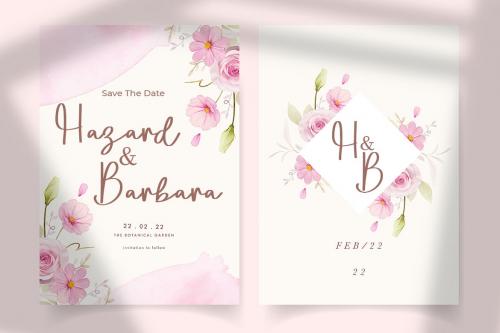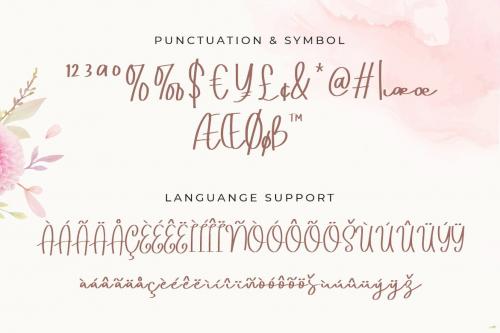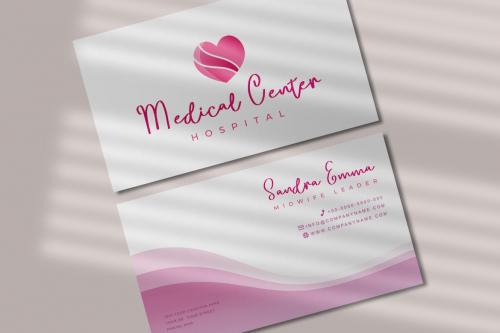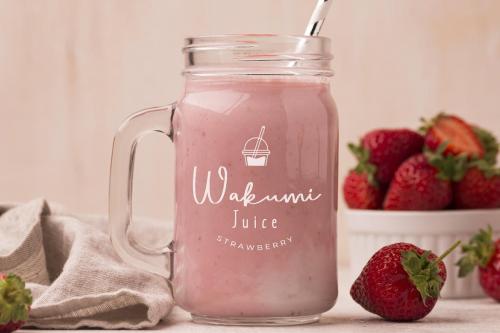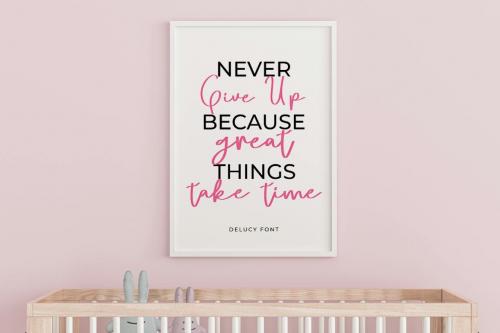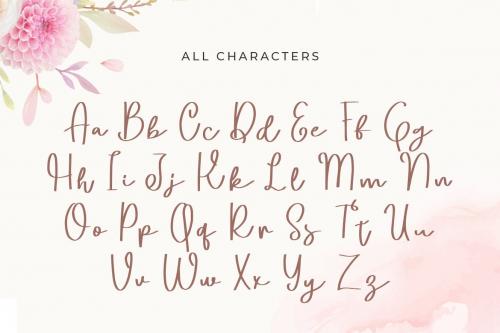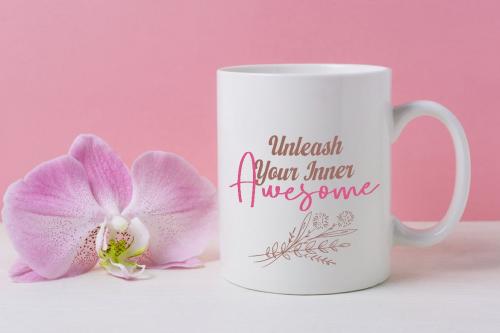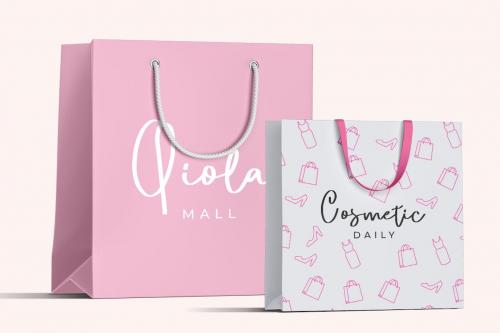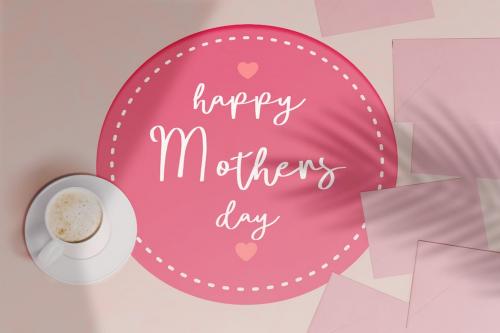
Delucy - Playful Handwritten Script Font
**Delucy is a Playful Handwritten Script Font with fun and beauty style and so charming.** This font specially crafted for your branding, quotes design projects or cute logo, unique, modern for any designs such as print, merchandise, and so many more with easy to use but unique results are so beauty.
Enjoy to Design any your needs with cute, beauty, and charming feel.
* All Characters (from A to Z)
* Numbers and Punctuation